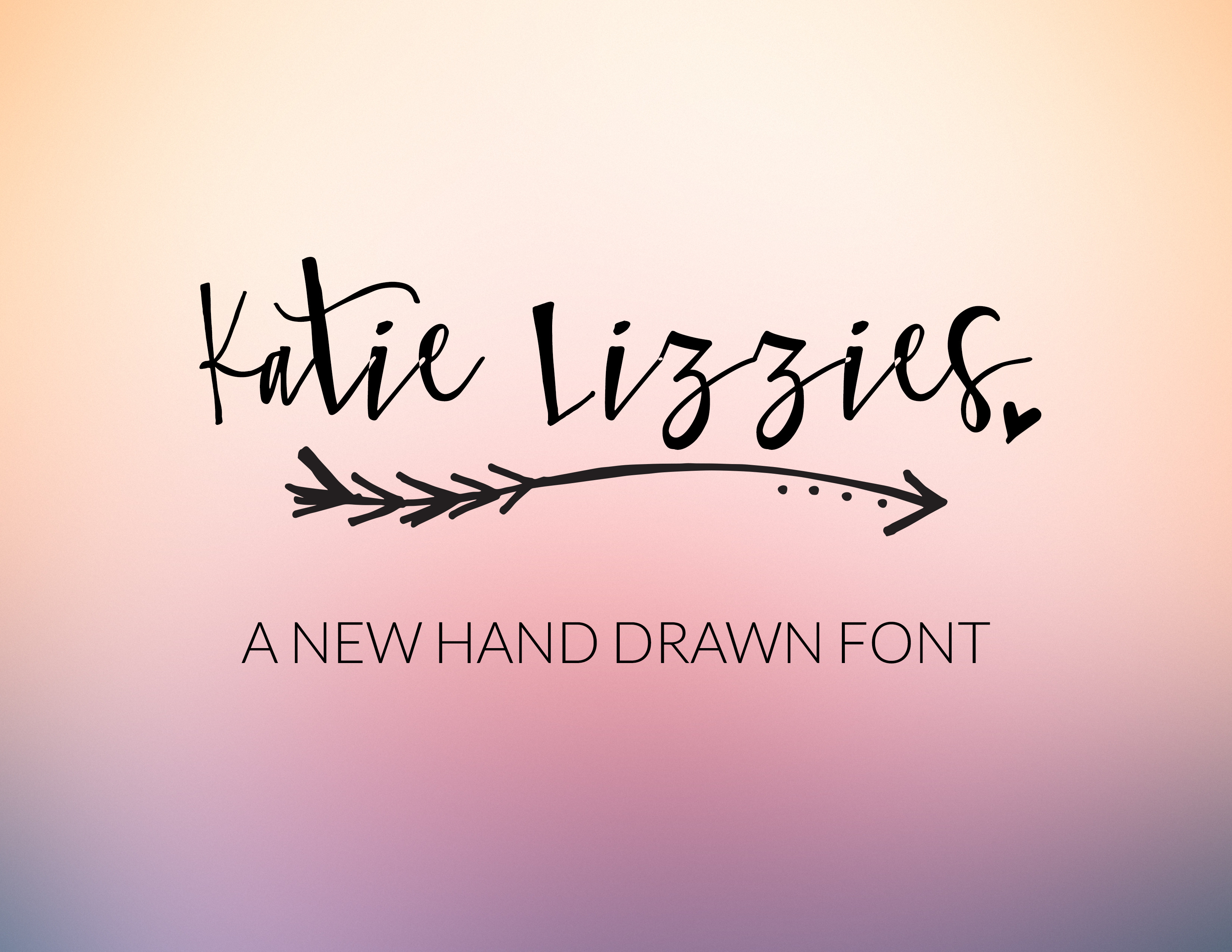
KatieLizzies is a custom hand lettering font. Perfect for digitial designs for print materials. Both OTF and TTF versions are available for MAC and PC.